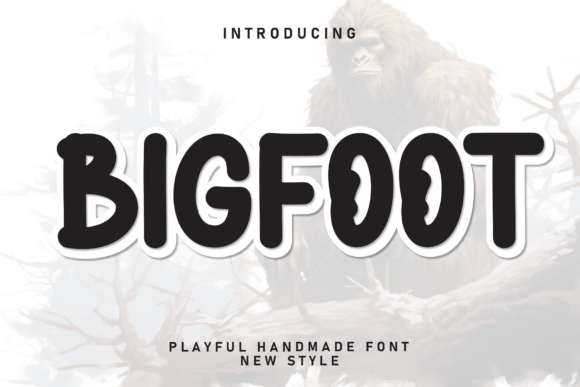
The Whimsical Charm of Bigfoot Font
Have you ever stumbled upon a handwritten note from a loved one, and instantly felt a rush of warmth and nostalgia? It’s those simple, imperfections that make the message all the more special. That’s the magic of handwritten communication, and Bigfoot Font is a digital representation of that same charm.
Bigfoot Font is a one-of-a-kind handwritten display font designed to add a touch of whimsy and camaraderie to any design. Whether it’s a wedding invitation, a heartfelt card, or a social media post, this font effortlessly infuses jubilance and personality into your creations. For designers, Bigfoot Font is a valuable addition to their toolkit, offering a unique way to add a refreshing twist to their designs and connect with their audience on a deeper level.
Bigfoot Font Key Features
- Font Family: Bigfoot is a sans-serif font family designed to evoke a sense of ruggedness and adventure.
- Unique Characteristics: Bigfoot’s distinctive features include its bold and rugged appearance, with a focus on legibility and readability in both digital and print formats.
Designer Review: Bigfoot Font
Overall, I’m quite impressed with the Bigfoot Font. It’s a bold, adventurous typeface that’s perfect for projects that need a rugged, outdoorsy vibe. ✨ I love the way the font’s thick lines and rounded edges give it a friendly, approachable feel. It’s also incredibly versatile, working well in both display and body copy.
The font’s most notable feature is its unique, hand-drawn aesthetic. ✨ Bigfoot Font looks like it was crafted by an artist, rather than a machine, which adds to its charm. The font also includes a range of weights and styles, making it easy to mix and match to suit your needs.
While Bigfoot Font is a great choice for many projects, there are a few limitations to be aware of:
- ⚠️ The font may be a bit too bold for projects that require a more subtle approach.
- ⚠️ Some users may find the font’s hand-drawn aesthetic a bit too rough or unrefined.
- ⚠️ The font’s unique style may not be suitable for projects that require a more traditional or formal look.
Overall, I think Bigfoot Font is a fantastic addition to any designer’s toolkit. Its unique aesthetic and versatility make it perfect for projects that need a bold, adventurous vibe. With a little creativity and experimentation, I think Bigfoot Font can be used to create some truly amazing designs.
Common Use Cases for Bigfoot Font
The Bigfoot font is ideal for:
- Creating attention-grabbing headlines and titles.
- Designing bold and quirky graphics and posters.
- Adding a touch of whimsy to your branding and marketing materials.